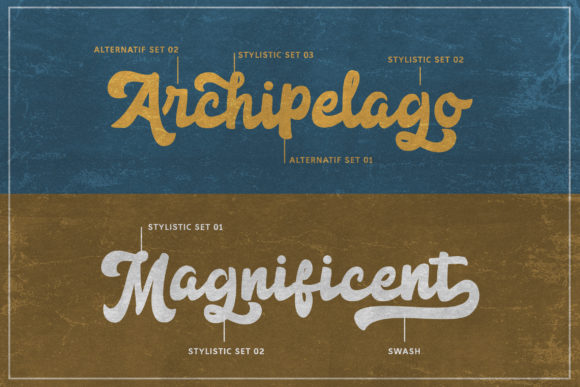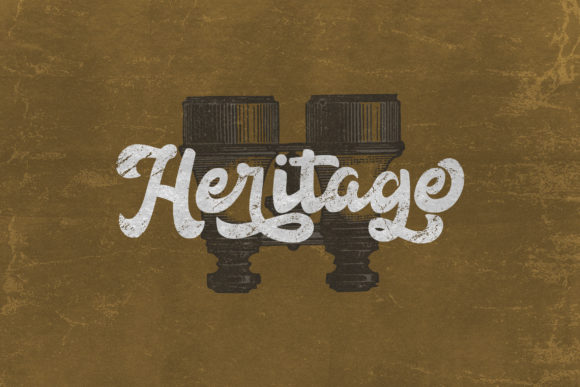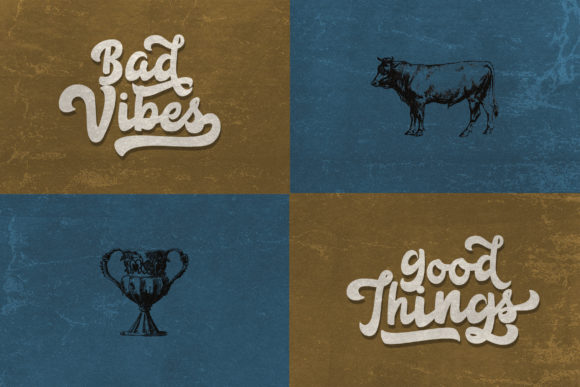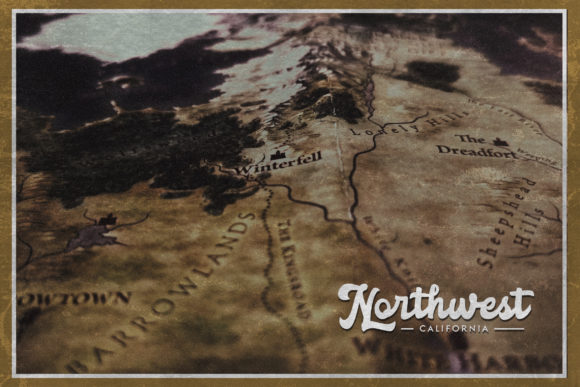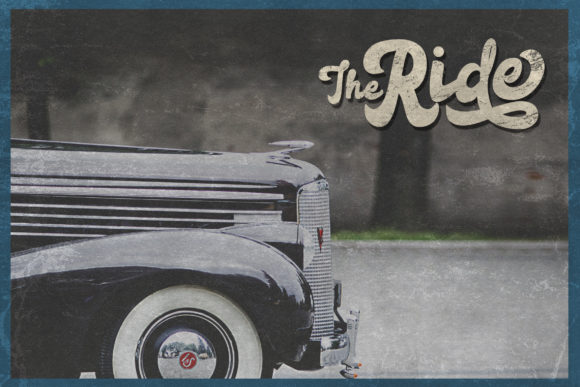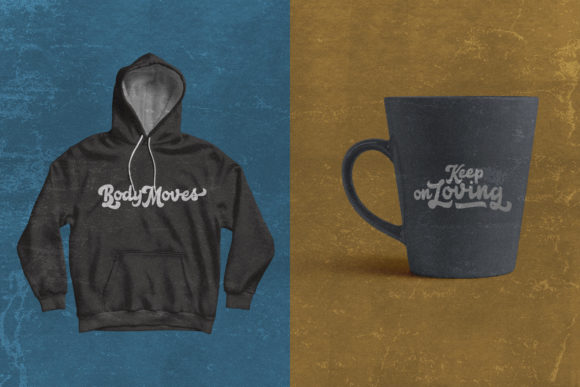
A Comprehensive Guide to Anggada Font: Elevate Your Designs with a Cool, Casual Vibe
Are you a designer or crafter looking for a unique font to make your projects stand out? Look no further than Anggada Font, a casual handwritten font with a cool vibe that’s sure to turn any design idea into a true standout. In this article, we’ll dive into the world of Anggada Font, exploring its features, benefits, and uses, as well as provide tips on how to make the most of this amazing font.
What is Anggada Font?
Anggada Font is a modern, handwritten font designed to add a touch of personality to your designs. With its casual, laid-back vibe, this font is perfect for creating eye-catching headings, titles, and text that will grab the attention of your audience. Anggada Font is a versatile font that can be used for a wide range of design projects, from branding and advertising to packaging and digital media.
Key Features of Anggada Font
• Unique and Handwritten: Anggada Font is a one-of-a-kind, handwritten font that adds a personal touch to your designs.
• Cool and Casual Vibe: This font exudes a relaxed, laid-back vibe that’s perfect for designs that need to feel approachable and friendly.
• Highly Legible: Despite its casual nature, Anggada Font is highly legible, making it perfect for use in a variety of design applications.
• Extensive Language Support: Anggada Font supports a wide range of languages, making it a great choice for designers working on international projects.
Benefits of Using Anggada Font
So why choose Anggada Font for your design projects? Here are just a few benefits of using this amazing font:
• Adds Personality to Your Designs: Anggada Font is a great way to add a touch of personality to your designs, setting them apart from more traditional fonts.
• Perfect for Branding and Advertising: The casual, laid-back vibe of Anggada Font makes it perfect for use in branding and advertising projects.
• Easy to Read and Understand: Despite its casual nature, Anggada Font is highly legible, making it easy for your audience to read and understand your message.
• Versatile and Flexible: Anggada Font can be used for a wide range of design projects, from digital media to packaging and print materials.
Tips for Using Anggada Font
Here are a few tips for getting the most out of Anggada Font:
• Use it for Headings and Titles: Anggada Font is perfect for use in headings and titles, where its casual, laid-back vibe can really make your text stand out.
• Pair it with Other Fonts: Anggada Font pairs well with a wide range of other fonts, making it easy to create visually interesting and dynamic designs.
• Experiment with Different Sizes and Colors: Don’t be afraid to experiment with different sizes and colors of Anggada Font to really make your designs pop.
In conclusion, Anggada Font is a unique and versatile font that’s perfect for designers and crafters looking to add a touch of personality to their projects. With its casual, laid-back vibe and highly legible design, Anggada Font is sure to turn any design idea into a true standout. Whether you’re working on a branding project, creating packaging, or designing digital media, Anggada Font is a great choice. So why not give it a try and see the difference it can make in your designs?
• Font Type: Handwritten
• Language Support: Extensive language support
• Style: Casual, laid-back